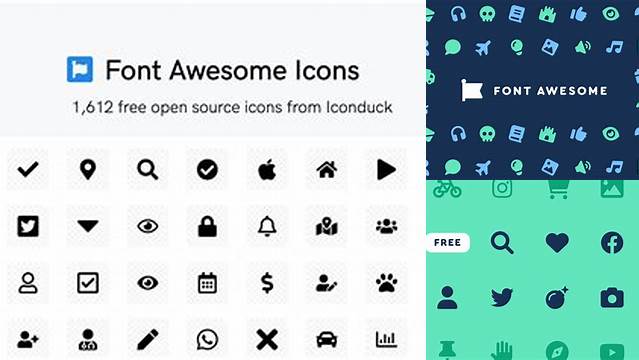
Hey there, web creators and design enthusiasts! Are you ready to supercharge your websites and apps with stunning, scalable vector icons? Of course, you are! When it comes to Font Awesome free download, you're not just getting a bunch of tiny pictures; you're unlocking a powerful toolkit that can elevate your UI/UX design, improve readability, and give your projects that polished, professional look without spending a dime. We're talking about a vast library of meticulously crafted icons that are incredibly easy to implement and customize. This isn't just about grabbing a file; it's about understanding how to truly leverage this amazing resource to make your digital creations shine. So, buckle up, because we're diving deep into everything you need to know about getting, using, and mastering Font Awesome's free offerings. From the initial download to advanced styling tips, we'll cover it all, ensuring you can confidently integrate these fantastic icons into any project you're working on. Let's make your designs pop, guys!
Alright, let's kick things off with the absolute basics of a Font Awesome free download! If you're new to the world of web development or just haven't dipped your toes into icon libraries yet, don't sweat it. Getting started with Font Awesome is surprisingly straightforward, and we're going to walk through it step-by-step. Essentially, Font Awesome is an iconic font and CSS toolkit that gives you scalable vector icons that can be customized with CSS. Think of it like a font, but instead of letters and numbers, you get awesome icons for buttons, navigations, social media links, and so much more. The best part? The free version offers a fantastic collection that's more than enough for most personal and even many professional projects. Our goal here is to make sure you understand what you're getting, why it's so popular, and how to get your hands on it without any headaches. We'll be focusing on the official and most reliable ways to integrate these icons, ensuring your project benefits from the latest features and best practices. There are a few methods for installation, including using a Content Delivery Network (CDN) for quick setup or self-hosting the files for more control. Both have their advantages, and we'll explore which one might be the perfect fit for your specific needs. Understanding this initial setup is crucial because it forms the foundation for everything else you'll do with Font Awesome. So, let’s get those first steps right and set you up for icon-driven success!
Seriously, guys, the popularity of Font Awesome isn't just hype; it's a testament to its utility and ease of use. Imagine needing a little house icon for your home button, a mail icon for your contact link, or a shopping cart for your e-commerce site. Instead of sourcing individual images, which can be a pain with different sizes, resolutions, and file types, Font Awesome gives you a single, unified system. These icons are essentially text characters, which means they scale perfectly on any screen, look crisp on retina displays, and can be styled with CSS just like regular text. Want a blue icon? Just change the color
property. Need it bigger? Adjust the font-size
. It's that simple! This flexibility is a game-changer for responsive design, ensuring your icons look fantastic whether someone is viewing your site on a giant desktop monitor or a tiny smartphone screen. The Font Awesome free download provides a robust selection that covers a vast range of common UI elements, making it an indispensable tool for designers and developers alike. Before we even get to the how of downloading, it's important to grasp this why. It's about efficiency, consistency, and making your design process smoother. So, let's prepare to dive into the nitty-gritty of getting these incredible icons into your projects, setting the stage for some truly awesome web experiences.
Why Choose Font Awesome for Your Web Projects?
Choosing Font Awesome for your web projects, especially considering the Font Awesome free download option, is a decision that brings a plethora of benefits to the table. First off, let's talk about scalability and visual quality. Unlike raster images (like JPEGs or PNGs), Font Awesome icons are vector graphics, meaning they're essentially lines and curves defined mathematically. This is a huge deal, guys, because it means they look absolutely pin-sharp on any screen, at any size, without any pixelation or blurriness. Whether your icon is tiny next to a menu item or blown up to a massive size for a hero section, it will maintain its crispness and clarity. This is particularly crucial in today's multi-device world, where users access your website from everything from high-resolution 4K monitors to small mobile screens. Consistency across devices is a cornerstone of good design, and Font Awesome nails it perfectly. You don't have to worry about creating multiple image assets for different resolutions; one icon serves all purposes, simplifying your workflow immensely and reducing the overall file size of your project. This alone makes it a compelling choice for any serious web developer or designer aiming for a polished, professional look. It streamlines the asset management process, freeing you up to focus on more complex design challenges.
Beyond just visual fidelity, another massive win for choosing Font Awesome is the sheer ease of use and integration. Once you've completed your Font Awesome free download and linked it up, using an icon is as simple as adding a specific class to an <i>
or <span>
tag in your HTML. Seriously, that's it! No complex JavaScript, no intricate CSS sprites – just a class name. This low barrier to entry means even beginners can quickly start incorporating professional-grade icons into their projects, instantly elevating the aesthetic without a steep learning curve. Furthermore, these icons are treated just like text, which opens up a world of styling possibilities with plain old CSS. Want to change the color? Use color
. Adjust the size? font-size
. Add a shadow? text-shadow
. Spin it? Apply an animation. The flexibility is incredible, allowing you to seamlessly integrate icons into your existing design system and match your brand's unique aesthetic. This level of customization, combined with the extensive library of icons available even in the free tier, makes Font Awesome an incredibly versatile tool. It empowers you to create dynamic, engaging, and visually appealing user interfaces without proprietary tools or complicated setup procedures. It's about empowering you to build better, faster, and with more style, without ever feeling bogged down by technical complexities. The community support and documentation are also top-notch, meaning you're never truly stuck if you encounter an issue, making the learning process smooth and enjoyable.
Understanding the Font Awesome Free Tier: What's Included?
So, you're keen on the Font Awesome free download, which is awesome! But before you dive in, it’s super important to understand exactly what you're getting with the free tier. This isn't just a limited trial; it's a genuinely robust collection of icons that can power a huge range of projects. When you opt for the free version, you gain access to a substantial subset of Font Awesome's massive icon library. We're talking about thousands of icons covering a vast array of categories: everyday user interface elements like arrows, home buttons, user profiles, and settings; brand icons for popular social media platforms such as Facebook, Twitter, and LinkedIn; essential document and file types; and a whole lot more. These icons are available in specific styles, primarily